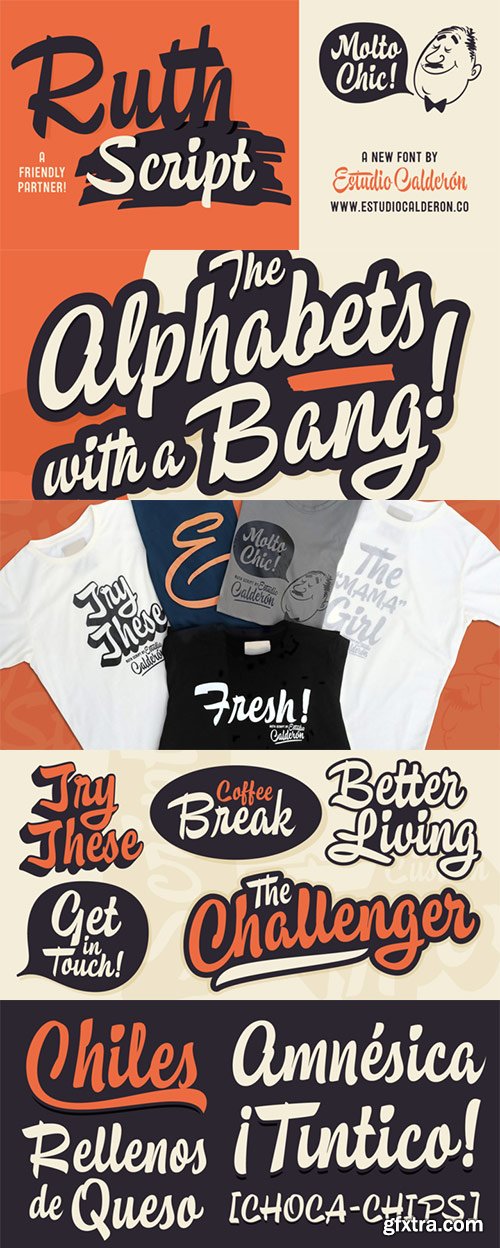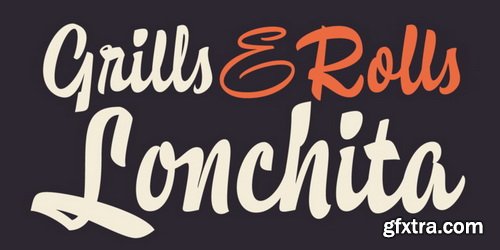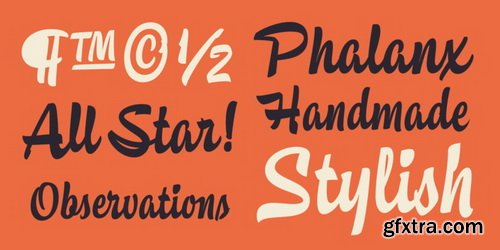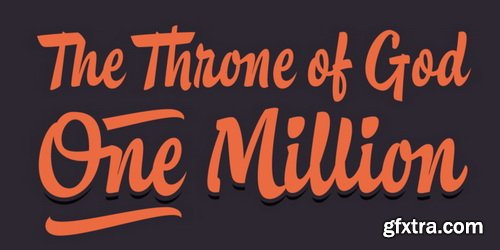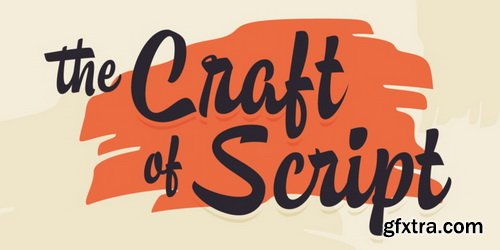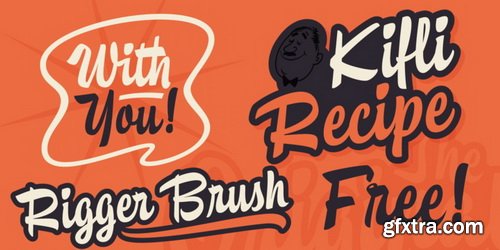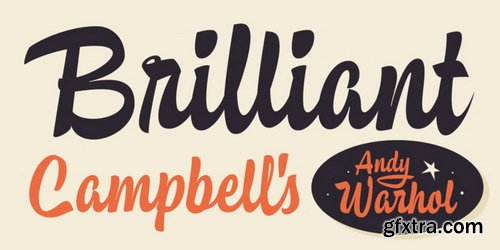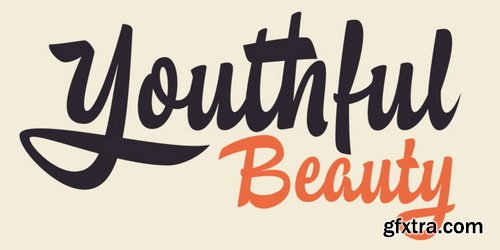
Ruth Script is perfect for neon signs, we took as referents some of these signs found in the street, especially those hanging in bars, billiard halls, motels and night clubs, we also took into consideration the Photo-lettering One Line manual to solve ligatures and alternatives (We want to thank Ed Ronthaler for that treasure to study and learn).The scripts can be considered as a compendium of connections, aesthetic and functional alternatives, where all the possible word combination is a universe depending on the language and the user’s creativity.We have developed a project that offers to our customers a bridge that connects the brush with the digital typography through a partial vowels and consonants control and ligatures with opentype programming.We know that the scripts make typography users, fall in love. That is why we have created a type font that achieves all the demands and requests for any project where our font can be applied.Ruth Script was designed with patience and love, with the purpose of recovering the work done by those people who have been working as letterer during decades and that have left us hundreds of guides, books and videos. A great legacy!